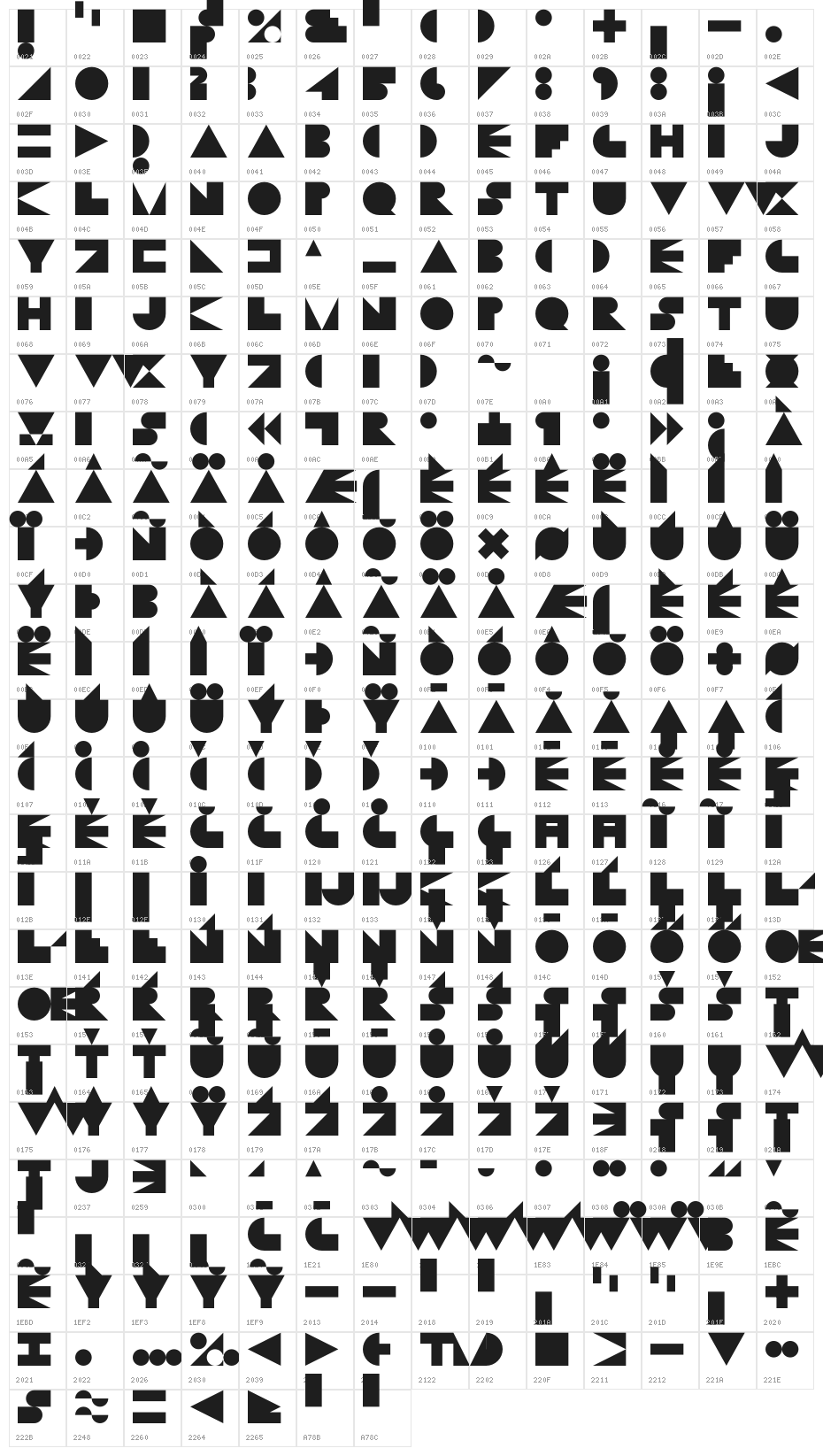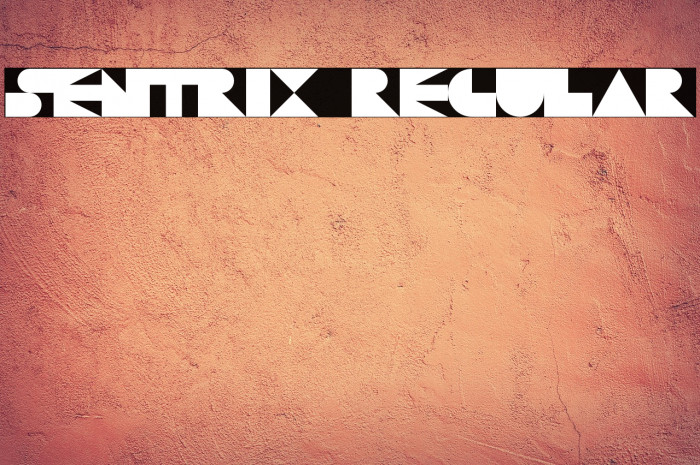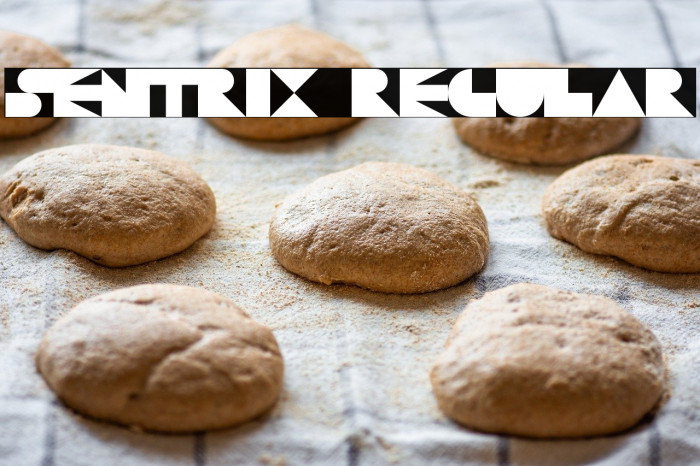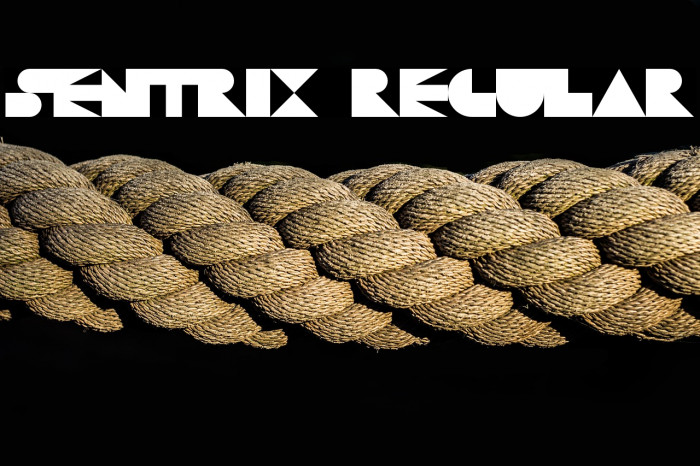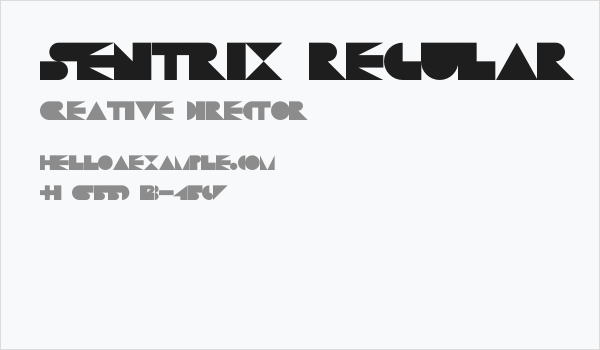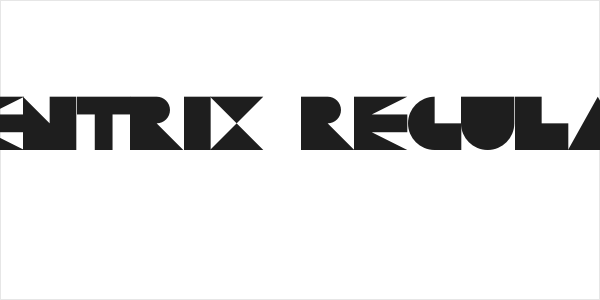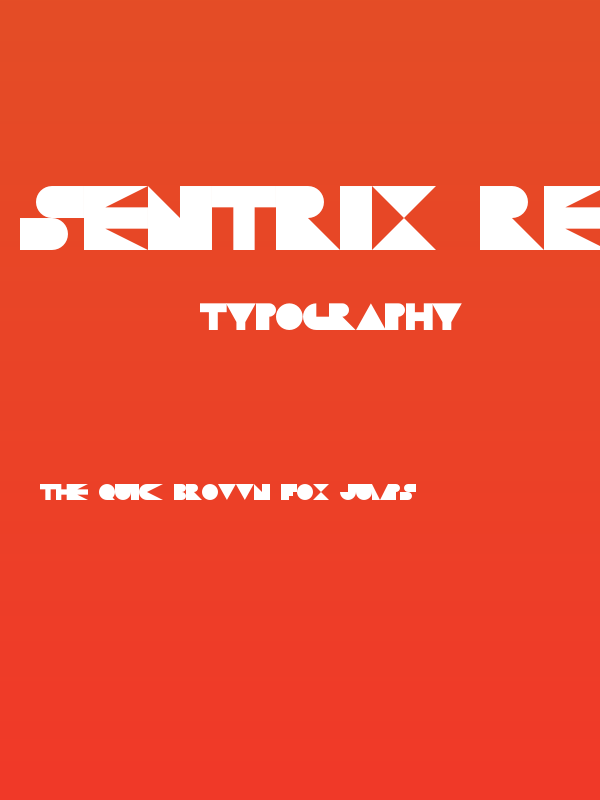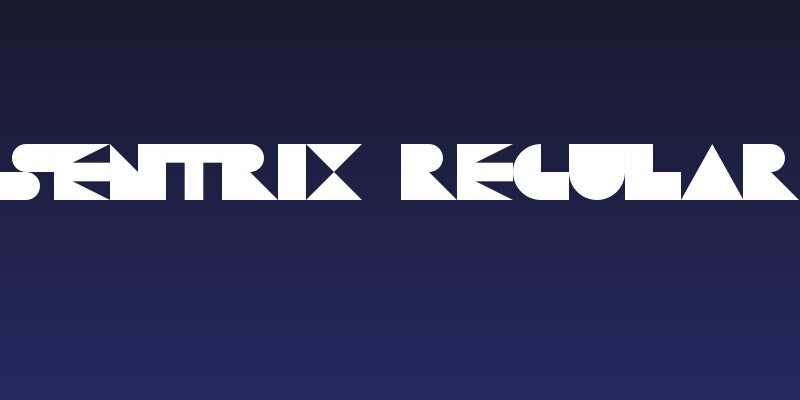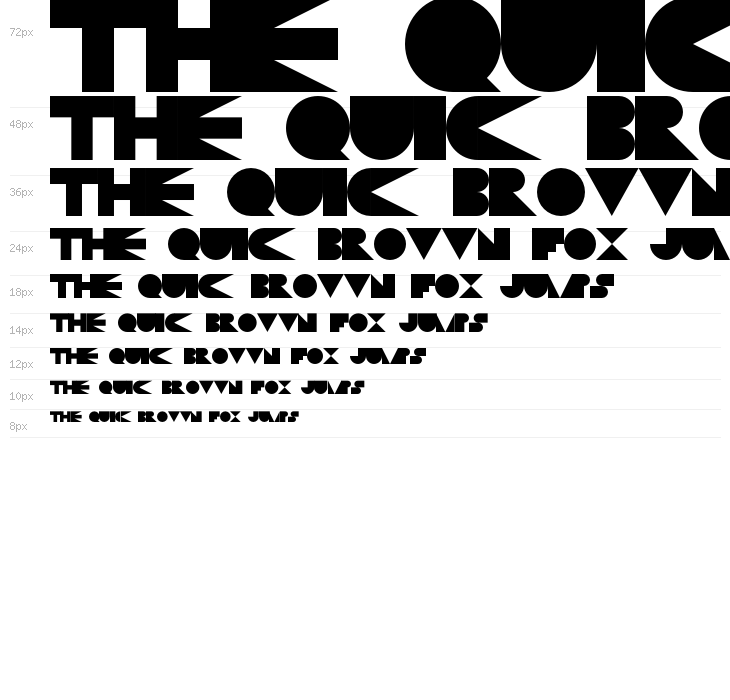
Sentrix Regular Font
Sentrix Regular Description
This font features a bold, geometric design with strong, angular shapes and high contrast. The characters are constructed using a combination of circles, triangles, and rectangles, giving it a futuristic and avant-garde appearance. The uppercase and lowercase letters maintain a consistent style, emphasizing symmetry and balance. The numbers and special characters follow the same geometric theme, ensuring uniformity across all glyphs. This font's unique style makes it stand out, suitable for projects that require a modern and striking visual impact.
| Use Case | Logos, Headlines, Posters |
| Proposed Projects | Ideal for branding, posters, album covers, and any project needing a modern, eye-catching typeface. |